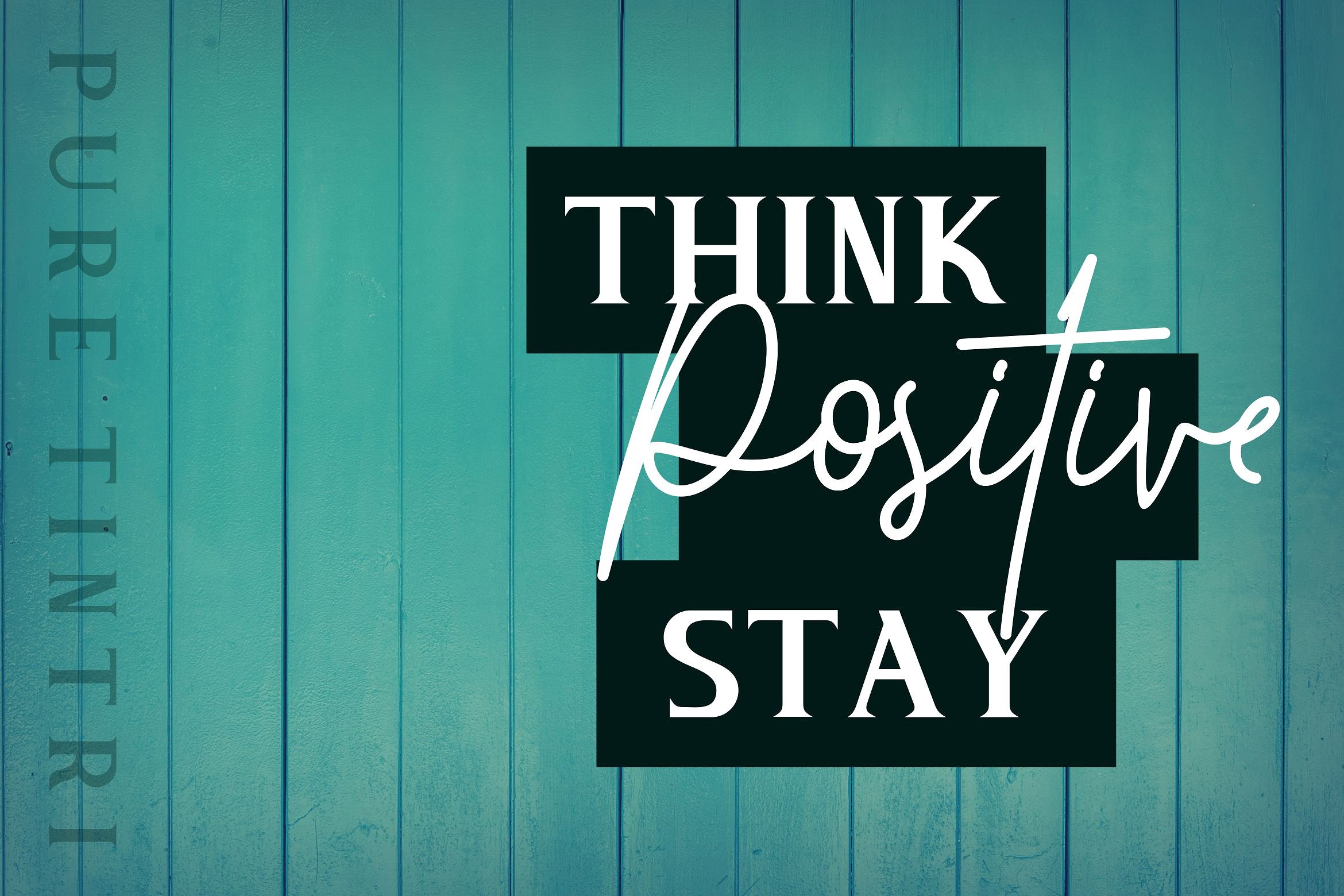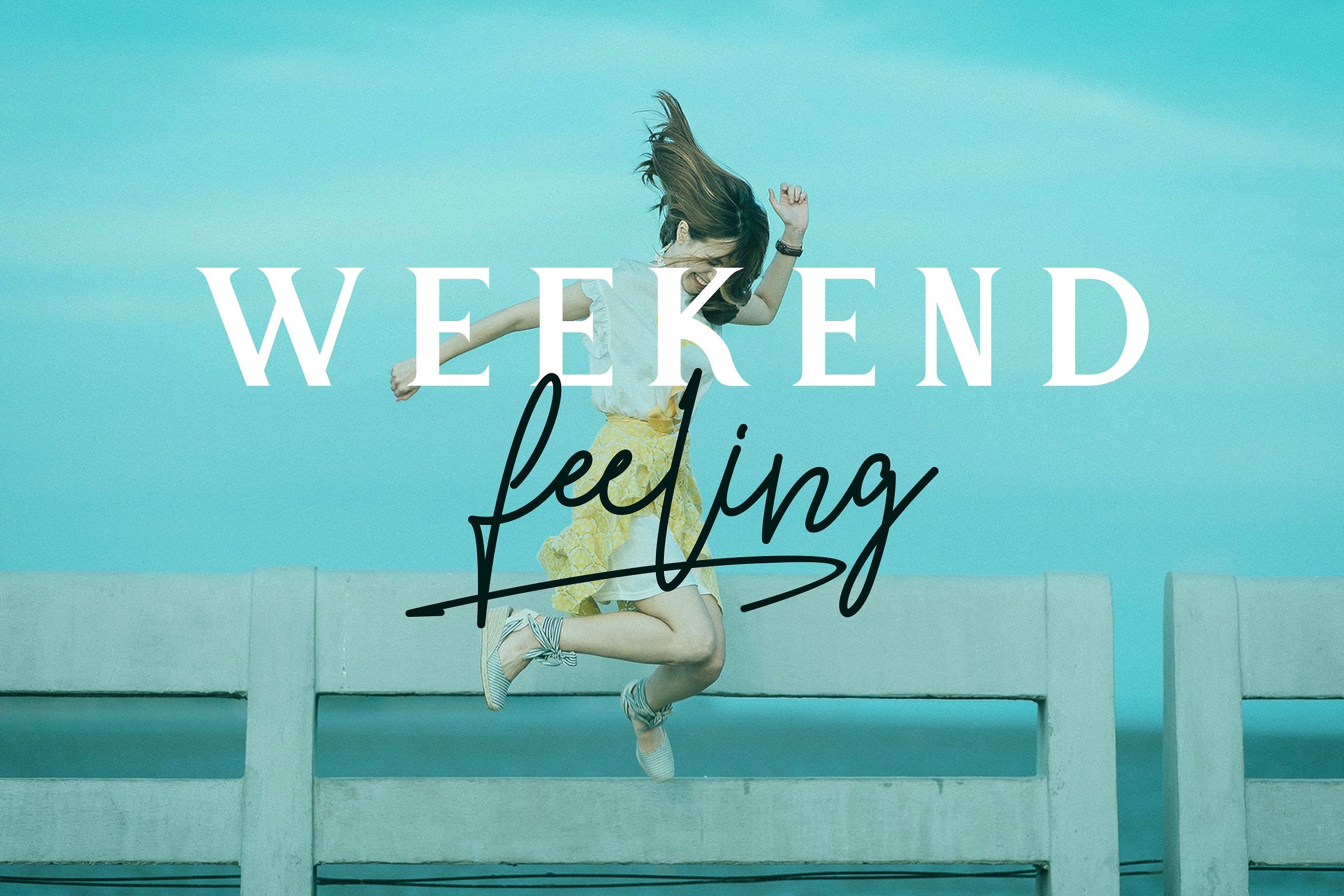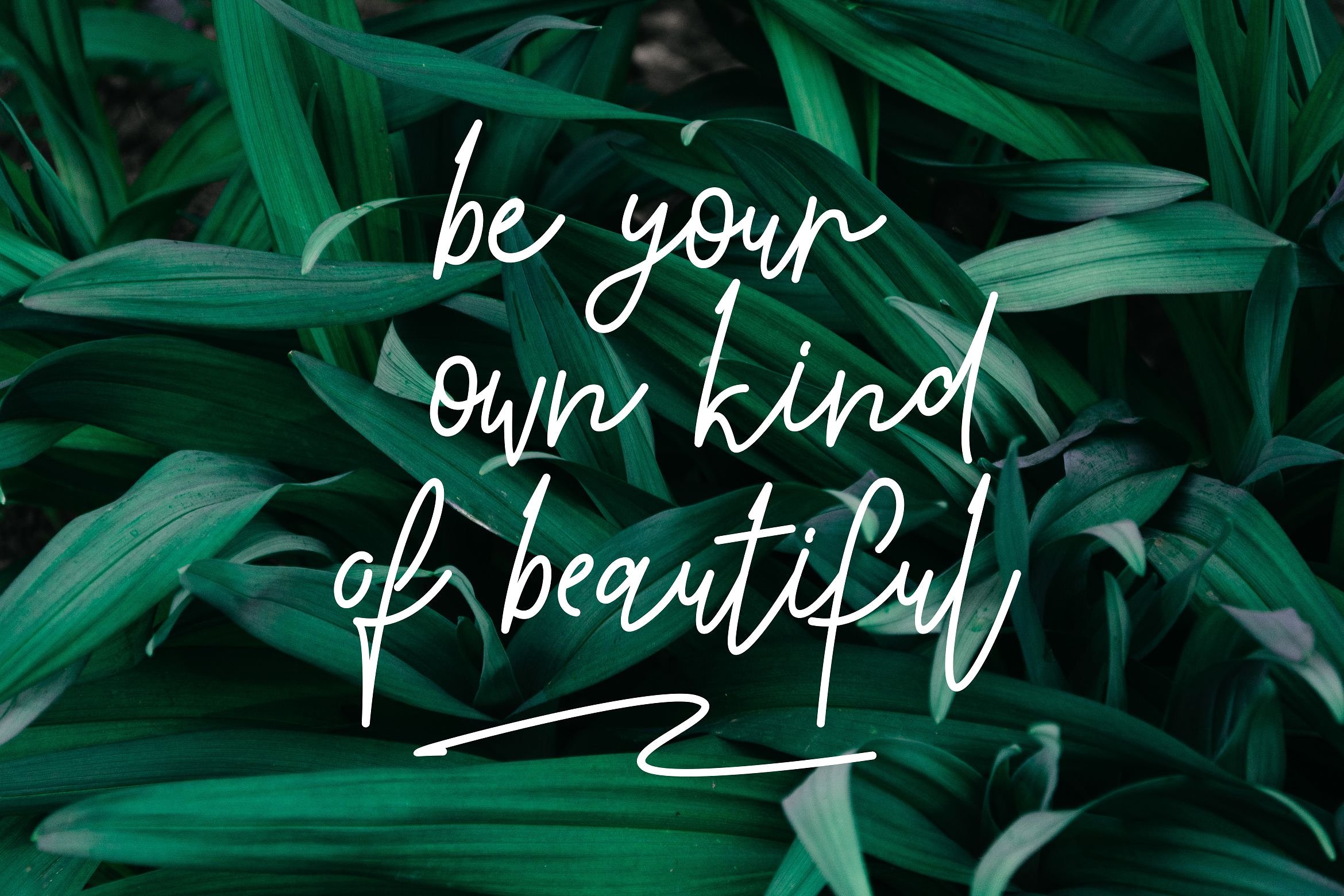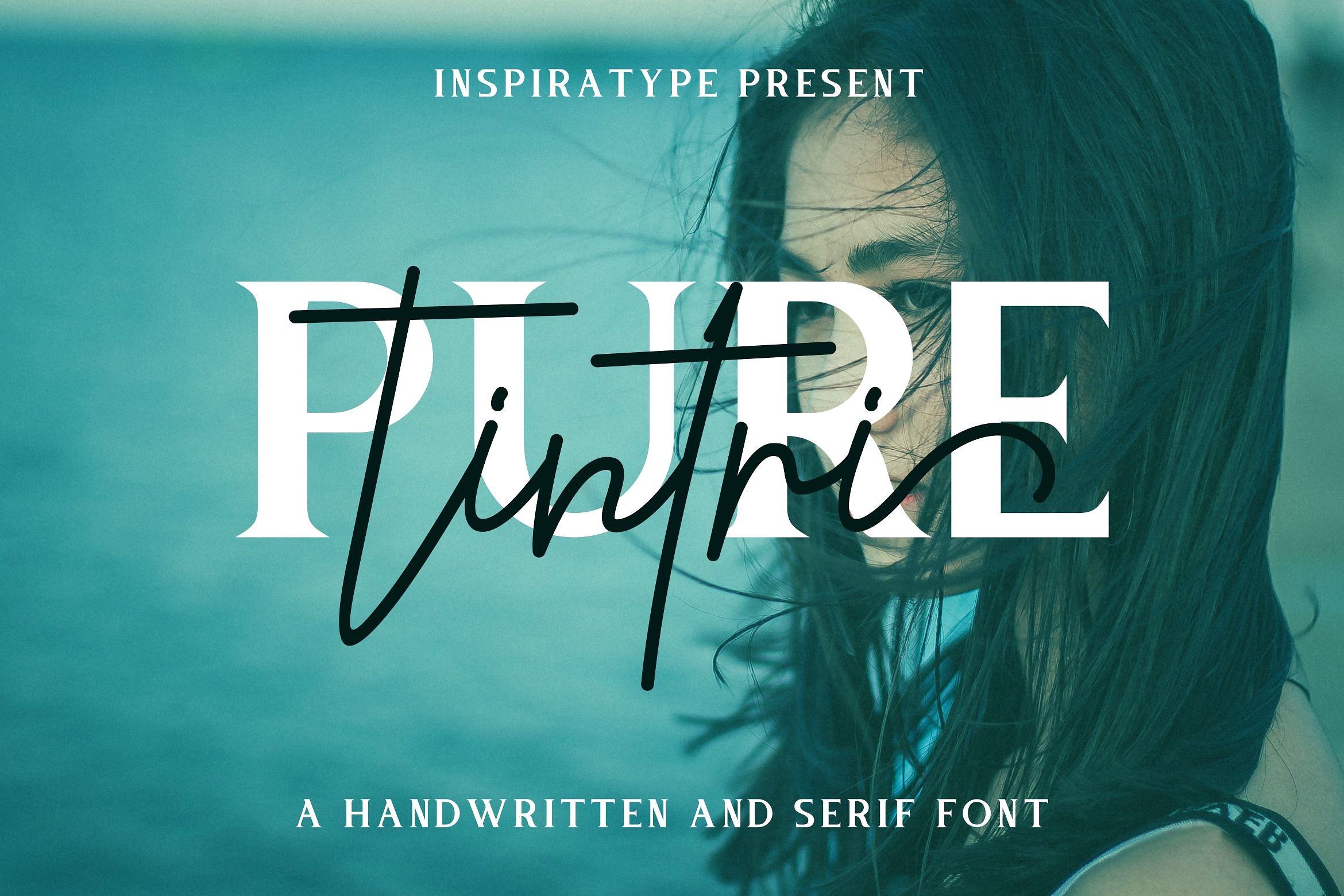
Tintri Pure Font Duo
Tintri Pure Script and Serif Font – a new handwritting font duo by Inspiratype. Tintri Pure Font Duo is a font display is made by hand, inspired by classic posters. comes with uppercase, lowercase, numerals, punctuations and so many variations on each characters include opentype alternates, common ligatures and also additional swash to let you customise your designs. Perfect to use for Logotype, Letterhead, Poster, Apparel Design, Label and etc.